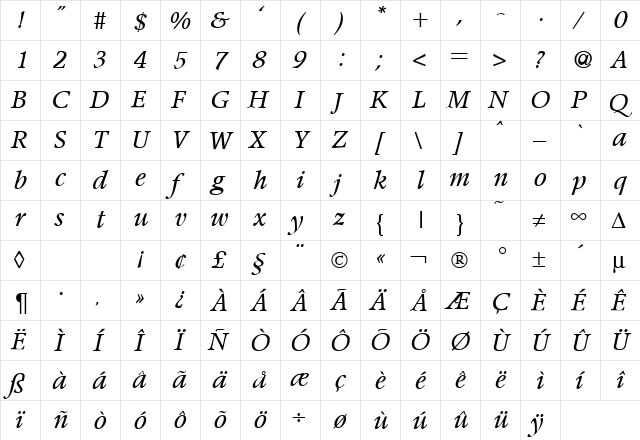
PoemPopular RegularItalic
Design Context for PoemPopular Typeface
PoemPopular is a composed and adaptable typeface that performs quietly and consistently across a wide range of design contexts. The dynamic lean of this cut emphasises speed and emphasis in any layout.
Pro Tip: Use PoemPopular for emphasis, pull quotes, and subheadings where its slanted energy can add rhythm to the layout.